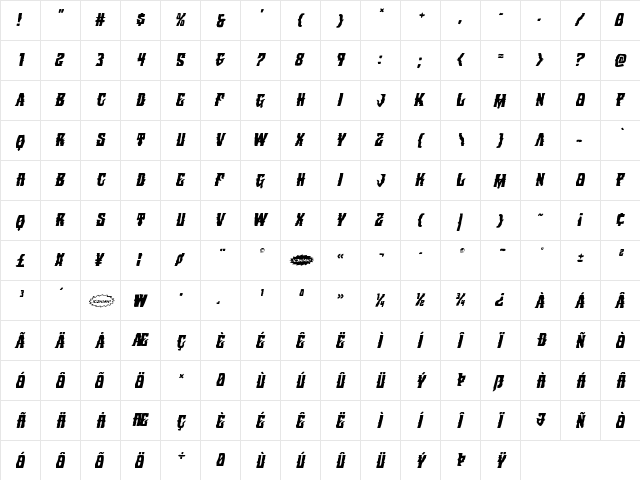
Warlock's Ale Italic Italic
Design Context for Warlock's Ale Italic Typeface
Warlock's Ale Italic is a composed and adaptable typeface that performs quietly and consistently across a wide range of design contexts. The dynamic lean of this cut emphasises speed and emphasis in any layout.
Pro Tip: Use Warlock's Ale Italic for emphasis, pull quotes, and subheadings where its slanted energy can add rhythm to the layout.